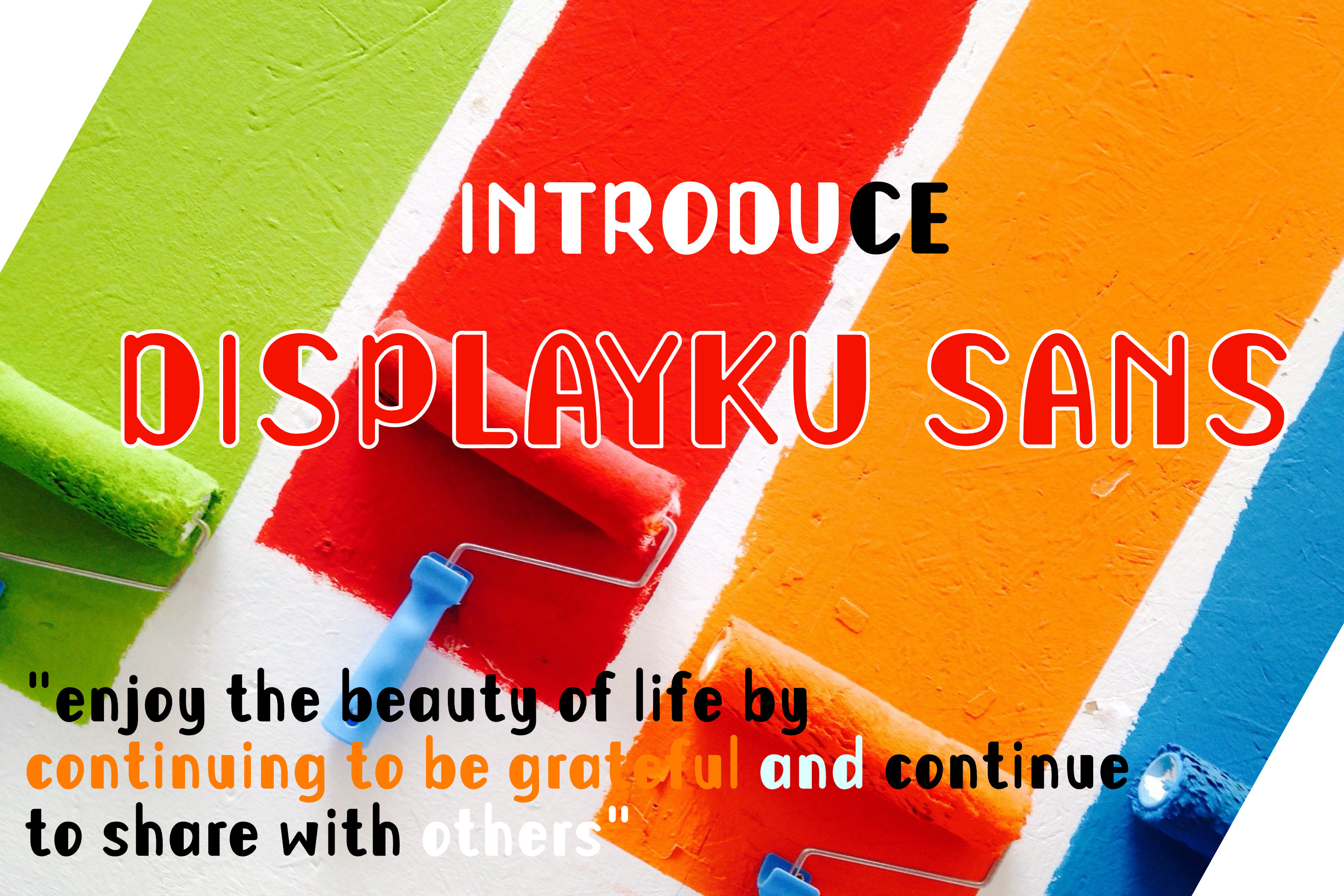
Displayku Sans - Logo Web Type Font
Displayku Sans is based on the Sans Serif Disply Font which has been made more flexible with some bold edges. Displayku Sans is a very unique and powerful Sans Serif-based display font for product branding, writing articles in magazines, websites and others. Displayku Sans is perfect for webfonts, web fonts, product names and more. It is also suitable for use as product logo writing or Logotype.